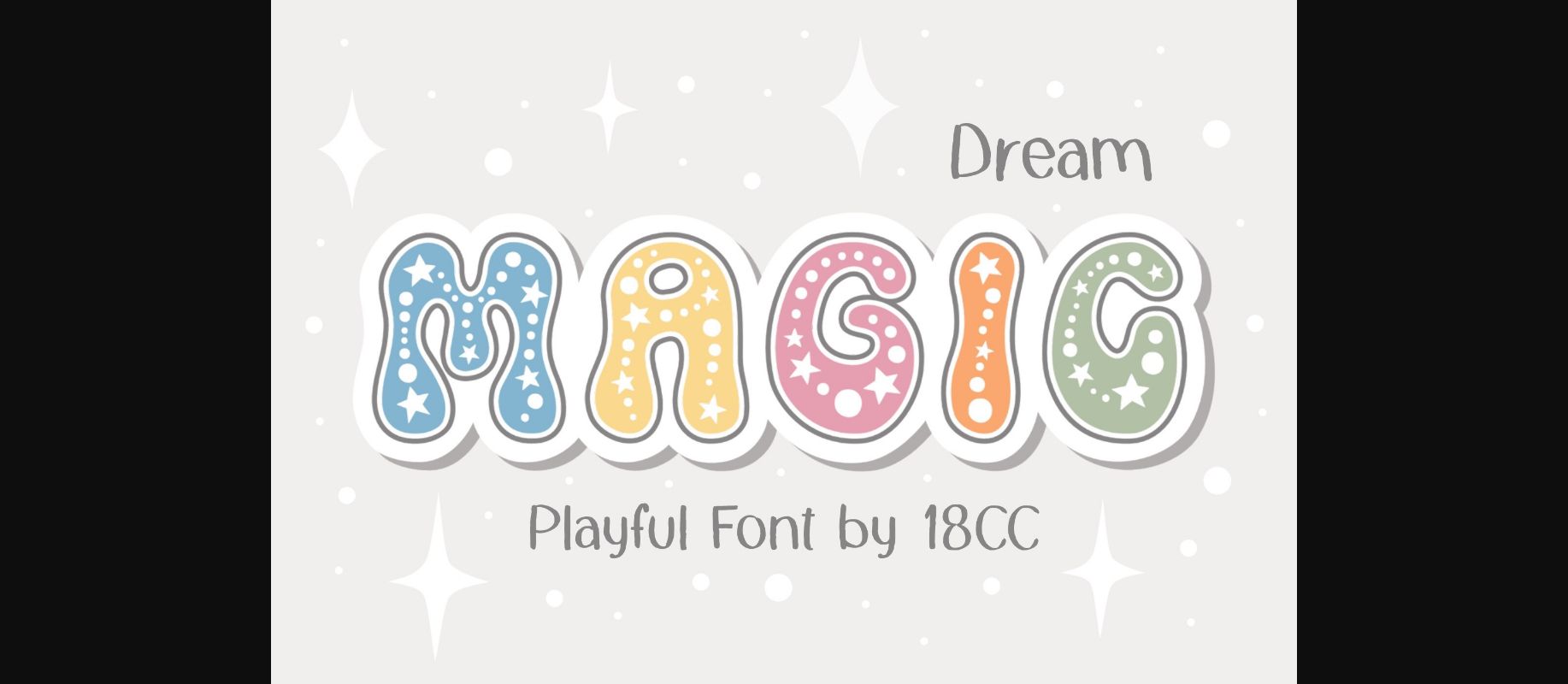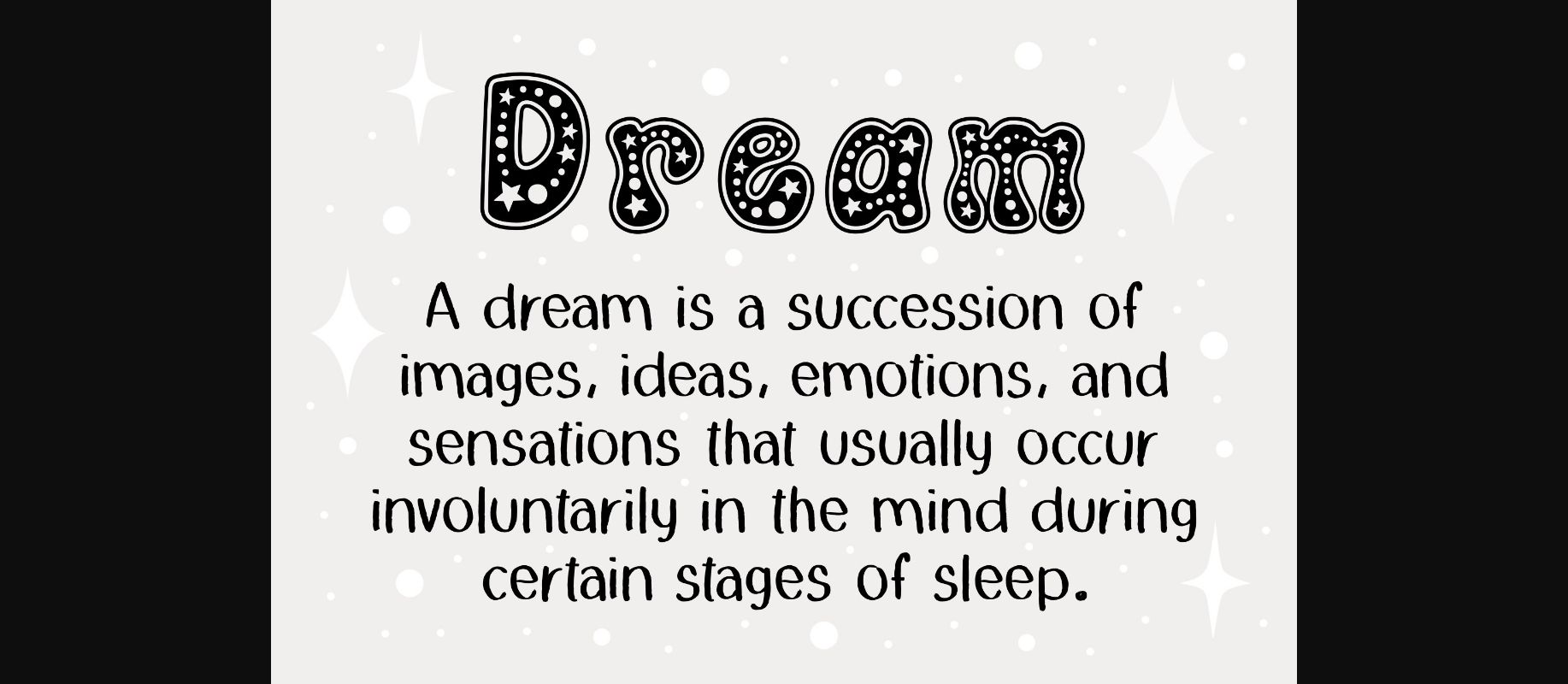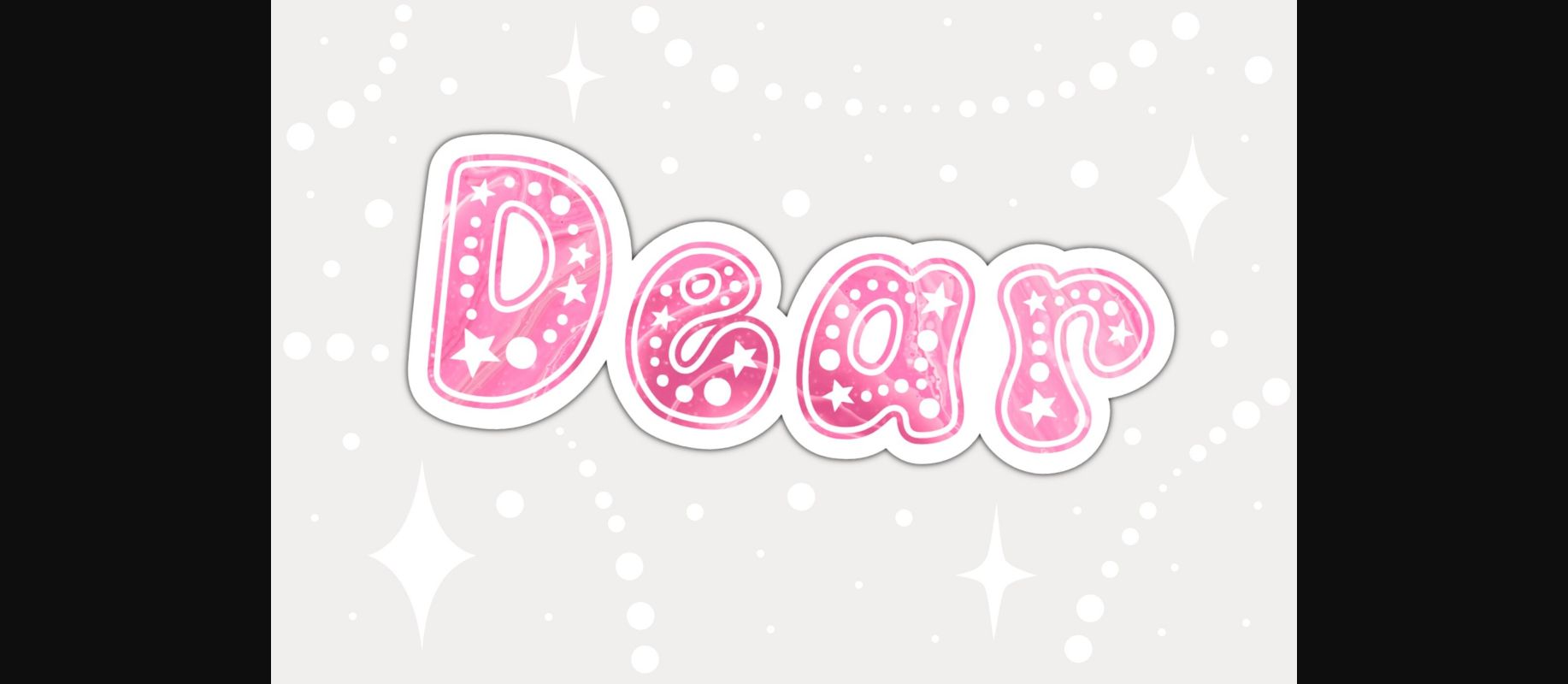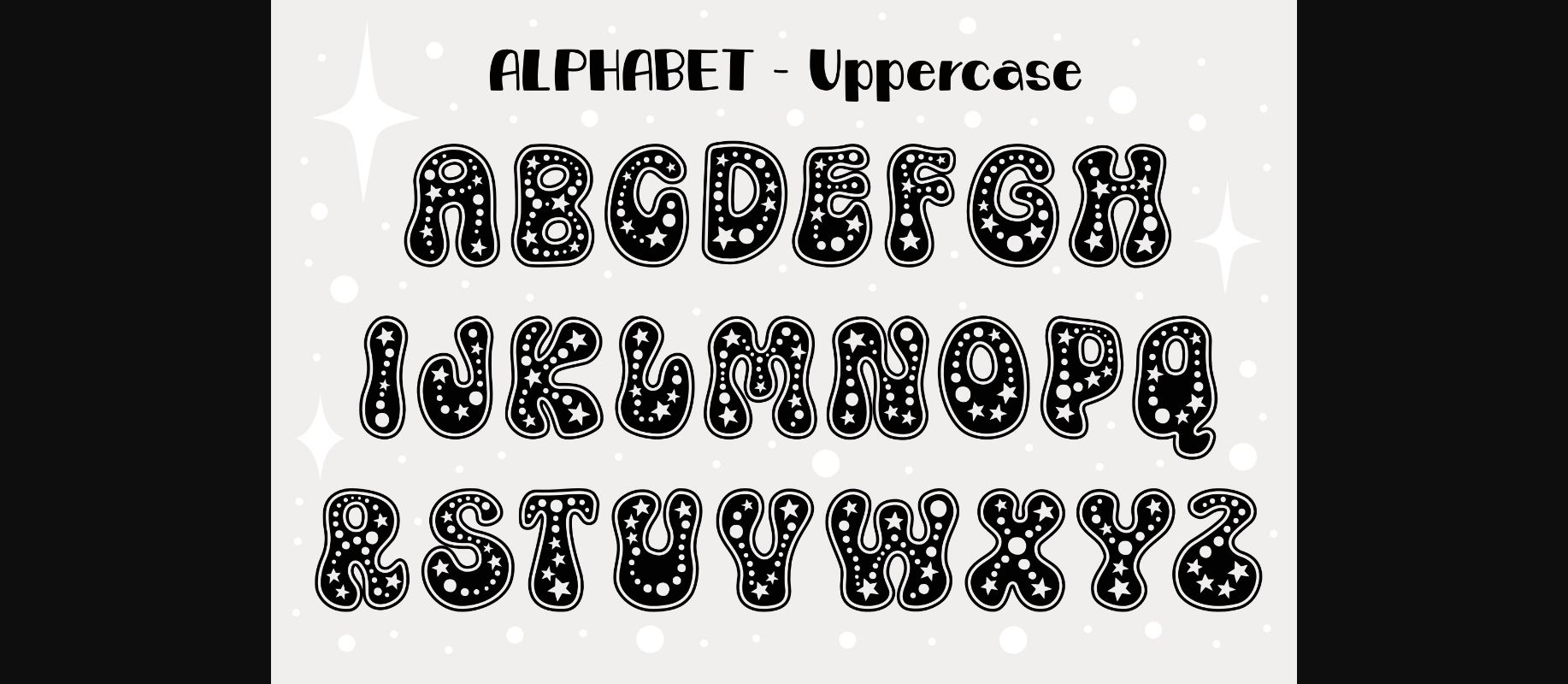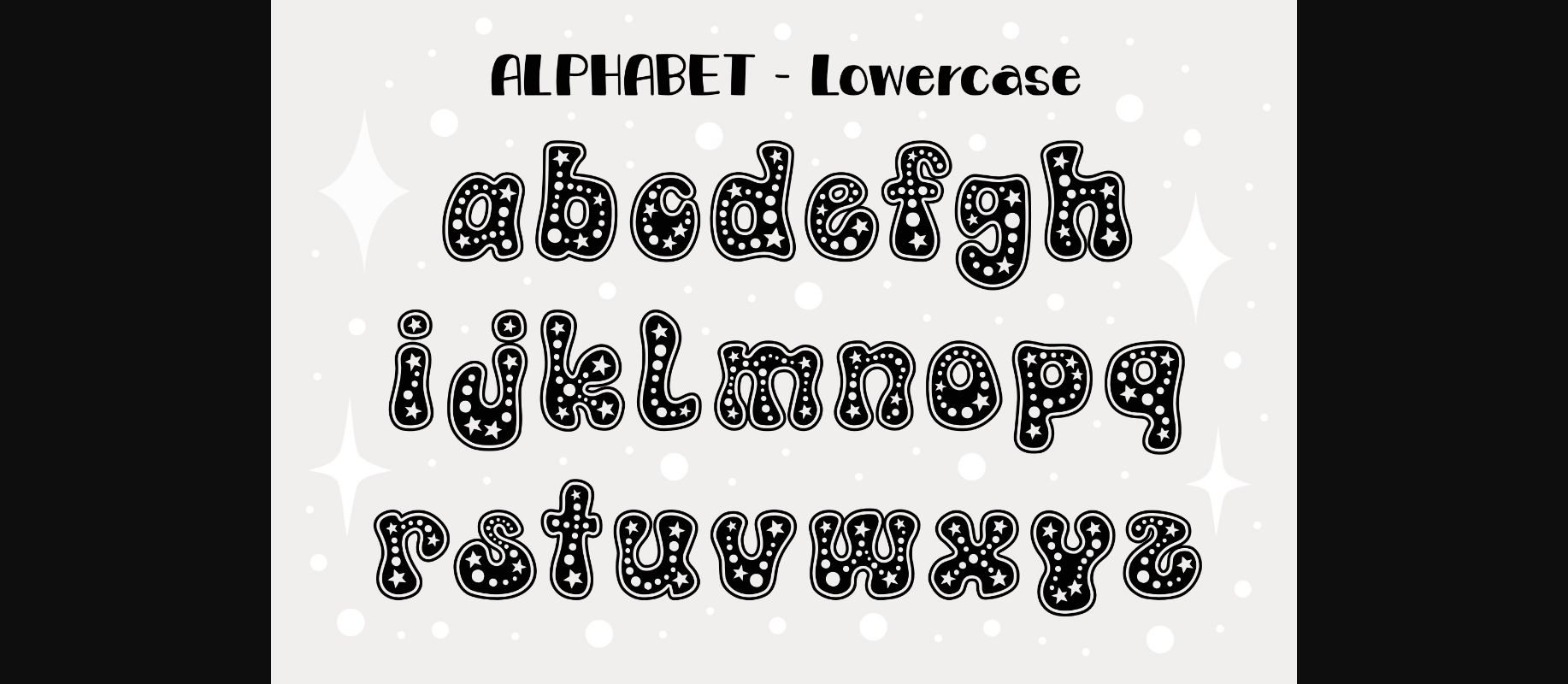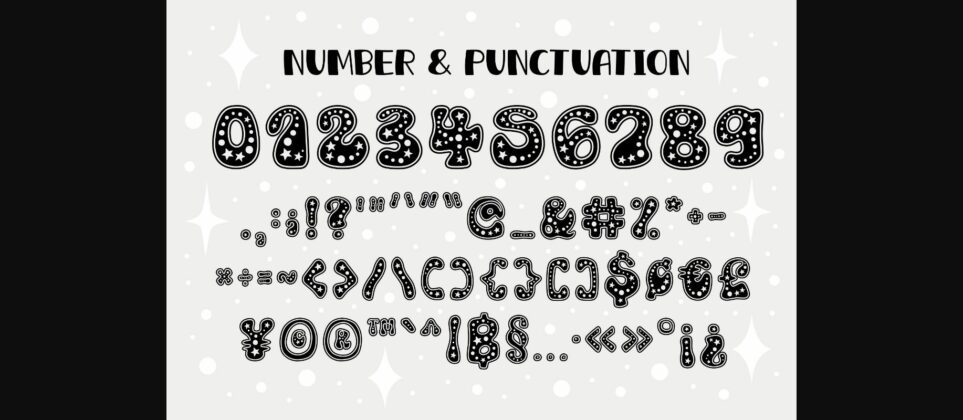
HomeDecorative FontsMagic Dream Font Decorative Fonts Magic Dream Font FacebookXPinterestWhatsApp 1 of 8 ... Magic Dream Font Poster 2... Magic Dream Font Poster 3... Magic Dream Font Poster 4... Magic Dream Font Poster 5... Magic Dream Font Poster 6... Magic Dream Font Poster 7... Magic Dream Font Poster 8... About Magic Dream Font Magic Dream is a playful font. This font is the perfect fit for all of your t-shirt, logos, branding, social media, crafty DIY projects, and much more! DOWNLOAD NOW People also explored Cecilyon Font Authentic Font Butter Winter Font Binturong Font Summer Moments Font Making Change Font Scallion Font Lonely Girl Font Intuitive Font 266 0 TagsMagic Dream Font Previous articleCute Reindeer FontNext articleHyper Space Font LEAVE A REPLY Cancel reply Comment: Please enter your comment! Name:* Please enter your name here Email:* You have entered an incorrect email address! Please enter your email address here Website: Save my name, email, and website in this browser for the next time I comment. Personal Use Free Underwood Champion Personal Use Free Read more about this font Awkward Personal Use Free Read more about this font Rhetorical Personal Use Free Read more about this font Vembazax Rm Personal Use Free Read more about this font BLOG How to Cut Any Font on Cricut: Convert a Font to SVG (Free) Turn any font into a clean SVG so it cuts crisp on Cricut - a quick 3-step workflow using a free font-to-SVG tool. Using Fonts in Digital Marketing: Tips to Strengthen Your Brand Identity Free Fonts Risk: Why Free Fonts Can Be Dangerous for Designers Top 7 Google Fonts Alternatives for Faster and Privacy-Friendly Web Design (2025)